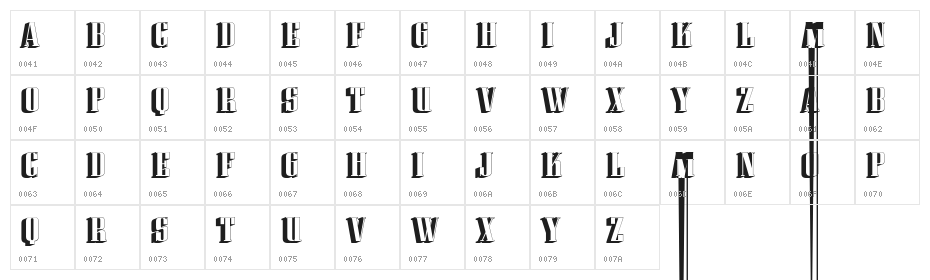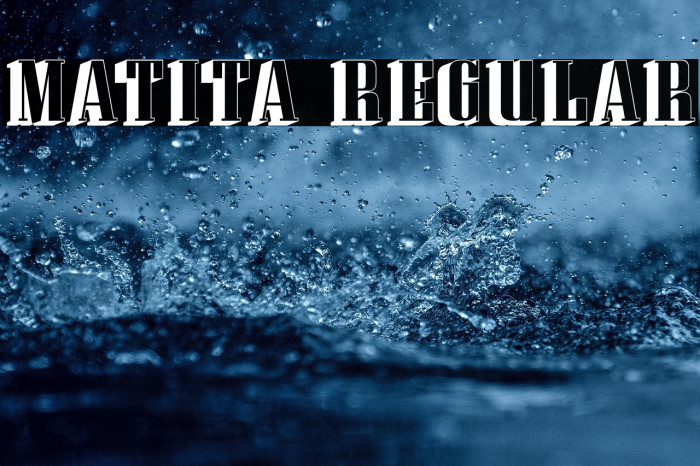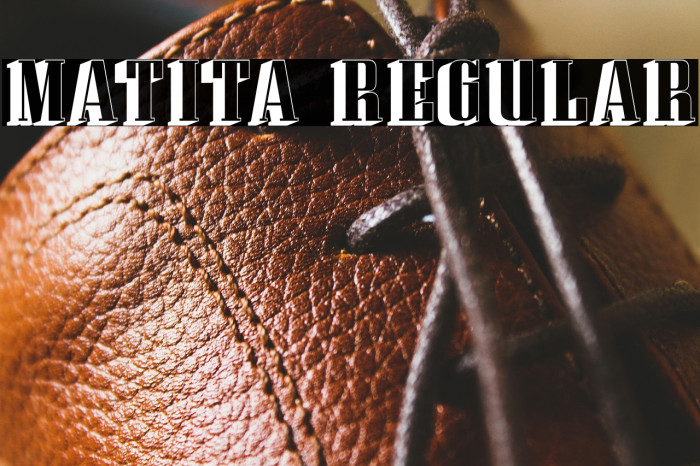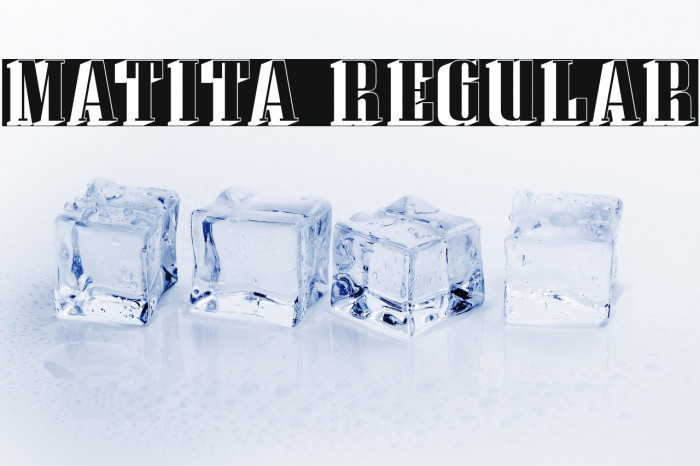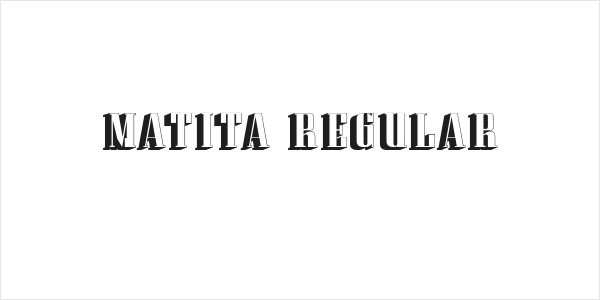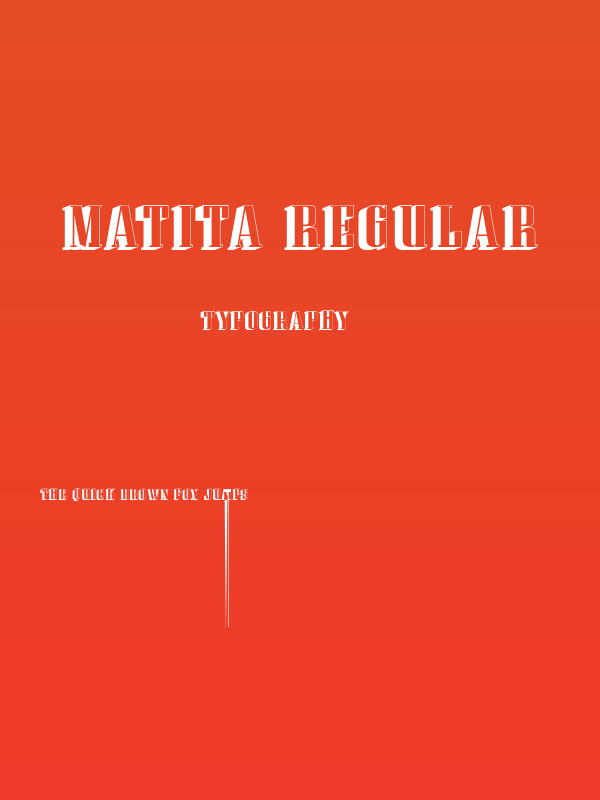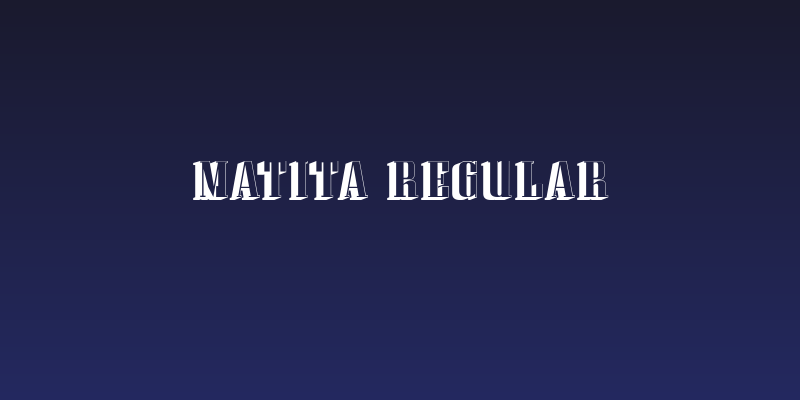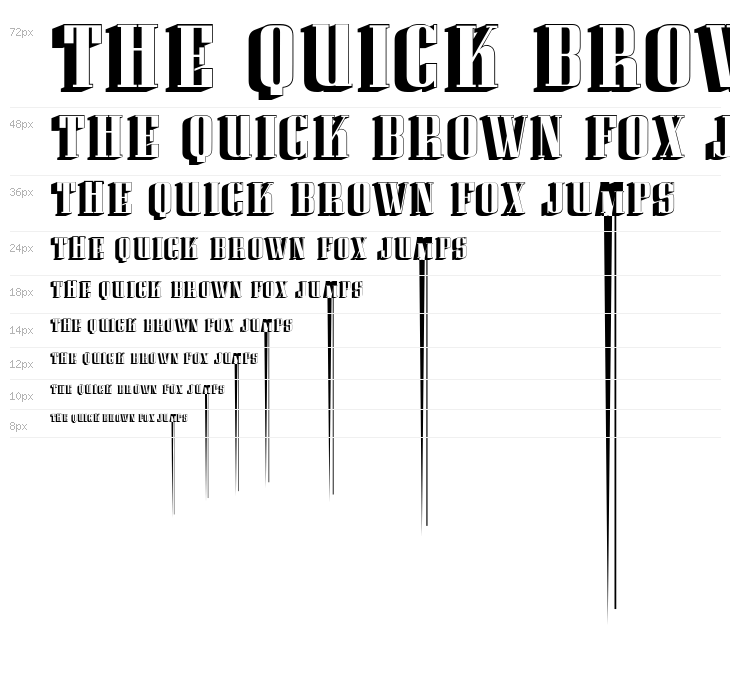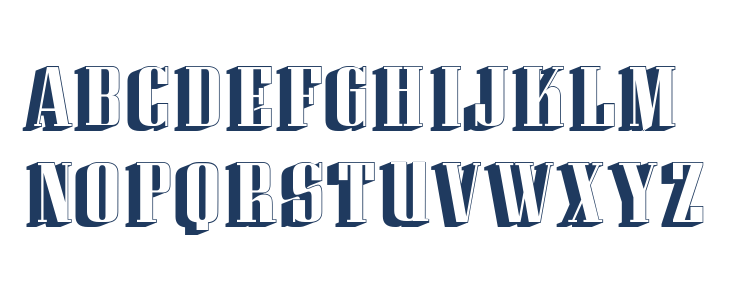
Matita Regular Font
Matita Regular Description
This font features a bold and striking design with a three-dimensional effect, giving each character a shadowed appearance. The uppercase letters are prominent and commanding, making them ideal for attention-grabbing headlines or titles. The font's style is reminiscent of vintage poster typography, with a strong presence and a touch of nostalgia. The characters are well-defined, with a consistent stroke width that adds to their boldness. The shadow effect is meticulously crafted, enhancing the depth and visual interest of the text. This font is perfect for projects that require a dramatic and impactful look.
| Proposed Projects | Ideal for vintage posters, logos, headlines, and any design needing a bold, dramatic touch. |